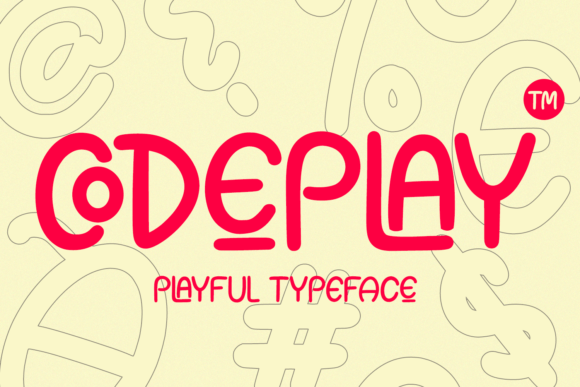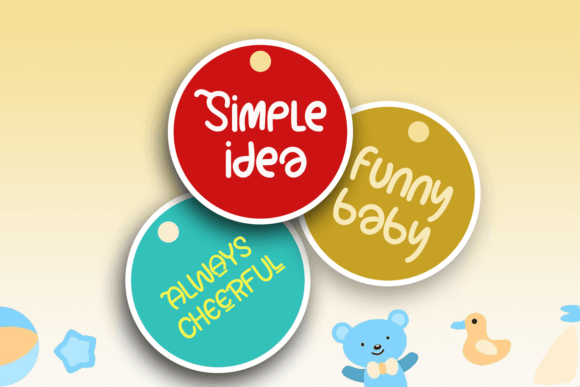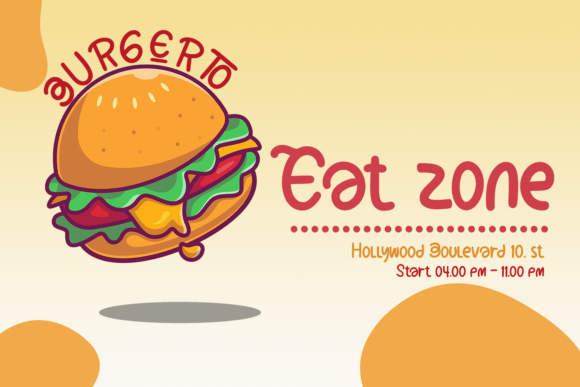
About Codeplay Font
Codeplay is an original handwritten font that brings a playful and fun character to your designs. With its unique charm, this font is well-suited for a variety of creative applications, including SVG designs, pottery, shirts, hats, tote bags, wall art, and interior prints. Embrace the childlike playfulness of Codeplay to infuse your projects with a distinctive and whimsical touch.
The fun and handwritten style of Codeplay adds a playful and lively energy to your designs. Each character is crafted with a childlike charm, creating an overall aesthetic that is both original and delightful. This makes Codeplay a great choice for projects where you want to convey a sense of creativity and playfulness.
The versatility of Codeplay shines through in its adaptability to various mediums. Whether you’re working on digital designs like SVG graphics or physical items like pottery, shirts, and tote bags, Codeplay brings a touch of originality that stands out.
Incorporate Codeplay into your creative projects and let its fun characters inspire your designs. From playful wall art to unique interior prints, this handwritten font encourages you to get creative and infuse your creations with a sense of joy and childlike whimsy. Let Codeplay be the original and playful font that adds a delightful touch to your artistic endeavors.